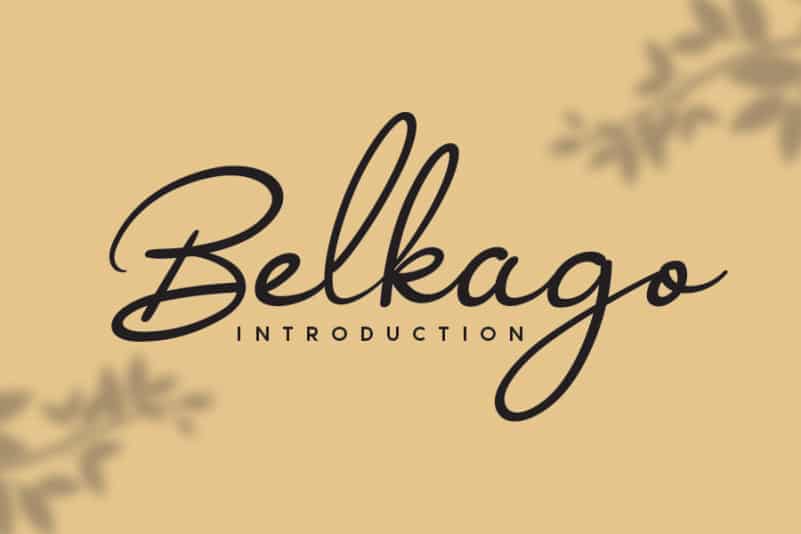
Belkago Handwritten Font
Belkago Handwritten Font results out of a stunning pairing of a brush pen and pencil that makes it look incredibly endearing and authentic. Use this gorgeous and unique handwritten font to bring any DIY project to life
The latest style letters are perfect for wall displays, wedding invitations, social media post logos,advertisements, product packaging, product designs, labels, photography, watermarks, invitations, stationery, and any project that requires taste handwriting.